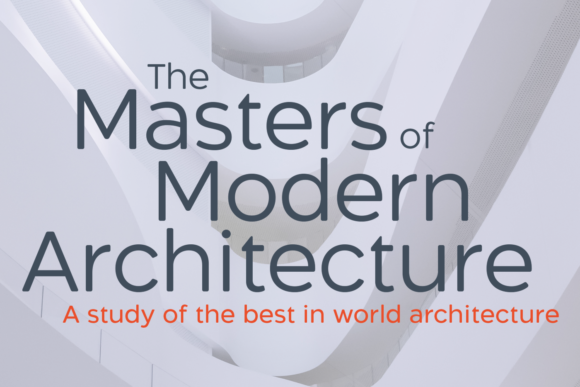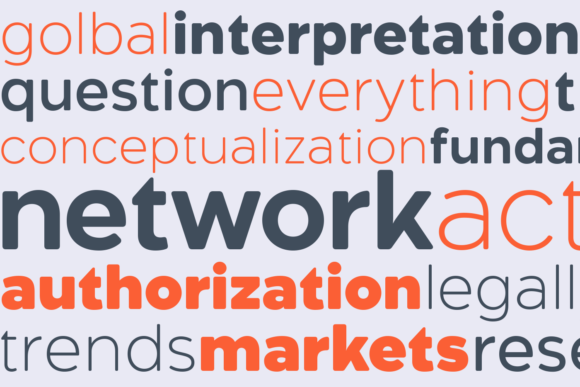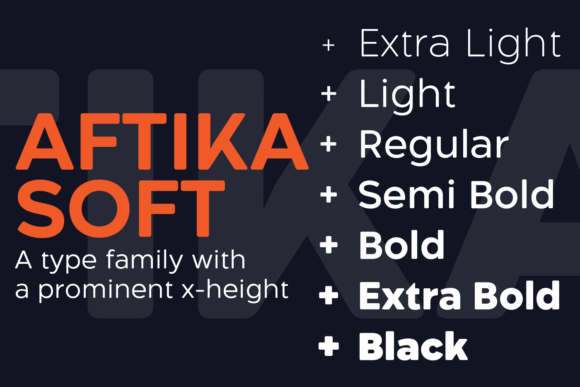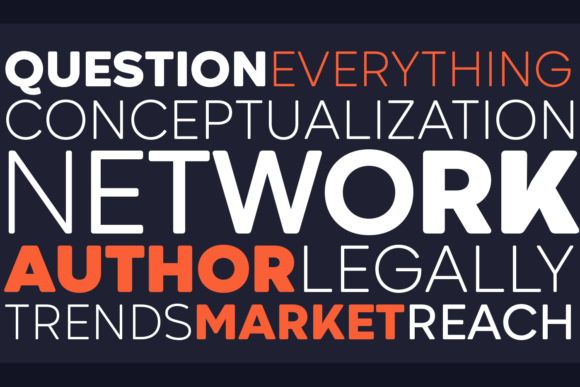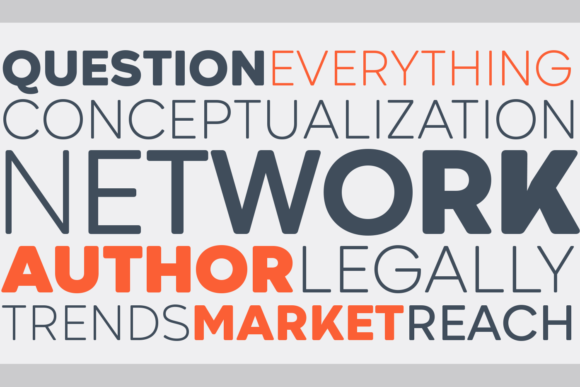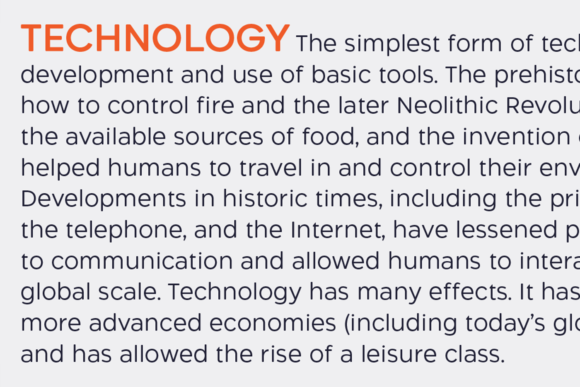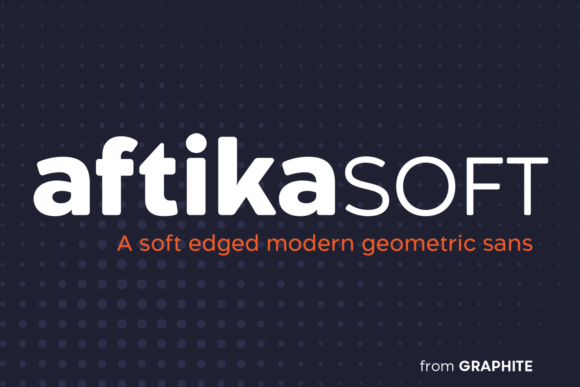
Aftika Soft Font: Elevate Your Designs with a Clean Geometric Sans Serif
In the world of typography, the right font can make all the difference in elevating your design from ordinary to extraordinary. For designers and crafters seeking a clean, geometric sans serif font that exudes sophistication and versatility, look no further than Aftika Soft. This soft-edged version of the Aftika type family is a game-changer, offering a unique blend of style, legibility, and adaptability.
What is Aftika Soft?
Aftika Soft is a clean geometric sans serif font family comprising seven weights, each carefully crafted to provide a distinct yet harmonious visual identity. Characterized by a prominent x-height, Aftika Soft is well-suited for a wide range of applications, from advertising and packaging to editorial and publishing, logos, branding, posters, billboards, signage, and even small text for print or digital screens.
Key Features of Aftika Soft Font
• Clean Geometric Design: Aftika Soft boasts a crisp, geometric design that lends itself to modern and minimalist aesthetics.
• Seven Weights: The font family includes seven weights, providing designers with a versatile range of options to suit various design requirements.
• Prominent X-Height: The font’s prominent x-height enhances legibility, making it ideal for body text and smaller sizes.
• Soft Edges: The soft edges of Aftika Soft add a touch of warmth and approachability to the font, setting it apart from more traditional sans serif fonts.
Applications of Aftika Soft Font
Aftika Soft’s versatility makes it an excellent choice for a variety of design applications, including:
• Advertising and Marketing: Create eye-catching ads and promotional materials with Aftika Soft’s clean, modern aesthetic.
• Packaging Design: Elevate your brand’s packaging with a font that exudes sophistication and style.
• Editorial and Publishing: Use Aftika Soft for book titles, article headings, and other editorial content that demands a high level of legibility and visual appeal.
• Logo and Branding: Create a lasting impression with Aftika Soft’s unique blend of modernity and approachability.
• Posters and Billboards: Make a statement with Aftika Soft’s bold, attention-grabbing design.
• Signage: Guide and inform with a font that’s easy to read, even from a distance.
• Digital Screens: Aftika Soft’s legibility and clarity make it an excellent choice for digital screens, from mobile devices to large displays.
Why Choose Aftika Soft Font?
With so many fonts available, why choose Aftika Soft? Here are just a few compelling reasons:
• Unique Aesthetic: Aftika Soft’s soft edges and geometric design create a distinctive visual identity that sets it apart from other sans serif fonts.
• Legibility: The font’s prominent x-height and clean design ensure excellent legibility, even at smaller sizes.
• Versatility: With seven weights and a wide range of applications, Aftika Soft is an incredibly versatile font that can adapt to various design needs.
Aftika Soft Font is a game-changer for designers and crafters seeking a clean, geometric sans serif font that exudes sophistication and versatility. With its unique aesthetic, excellent legibility, and adaptability, Aftika Soft is an excellent addition to any design arsenal. Whether you’re working on a branding project, creating eye-catching ads, or designing packaging, Aftika Soft is sure to elevate your designs to new heights.